15 Best Aesthetic Fonts for Instagram Bios & Captions
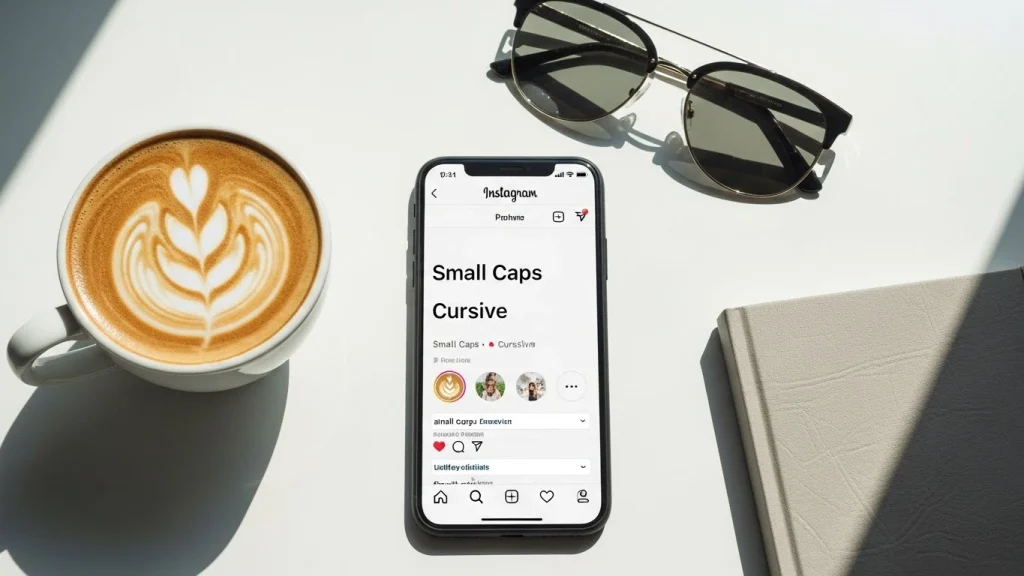
In the crowded world of social media, your first impression is often determined by your visual style. While high-quality photos are essential, the text you use in your bio and captions plays a massive role in defining your personal brand. Using aesthetic fonts for Instagram allows you to break away from the standard system typefaces and inject personality, whether you’re aiming for a “soft girl” vibe, a “dark academia” look, or a sleek minimalist profile.
As Instagram continues to evolve into a portfolio for creators and a storefront for businesses, every detail counts. Custom fonts don’t just look “cool”—they act as visual cues that tell your audience who you are before they even read a single word. In this guide, we’ll explore the top 15 font aesthetic styles currently trending and how to use them without hurting your profile’s reach.
Why Use Aesthetic Fonts for Instagram?
Before diving into our top picks, it’s important to understand how these fonts work. Instagram doesn’t technically allow you to change your font within the app settings. Instead, these “fonts” are actually Unicode characters. These are mathematical symbols that resemble letters, allowing them to be recognized as “text” across different devices.
Using these styles can increase your profile’s “stopping power.” When users scroll through a sea of standard Helvetica-style text, a unique font acts as a visual speed bump, encouraging them to pause and engage with your content.
1. The Classic Cursive
Perfect for romantic, feminine, or high-end fashion accounts. It adds an air of elegance.
𝓒𝓾𝓻𝓼𝓲𝓿𝓮 𝓢𝓽𝔂𝓵𝓮
2. The Minimalist Sans
Clean, modern, and easy to read. Ideal for tech and lifestyle influencers.
𝖬𝗂𝗇𝗂𝗆𝖺𝗅𝗂𝗌𝗍 𝖫𝗈𝗈𝗄
3. The Bold Serif
If you want your name or a specific call-to-action to pop, this is your best bet.
𝐁𝐨𝐥𝐝 𝐒𝐞𝐫𝐢𝐟 𝐓𝐞𝐱𝐭
4. The Monospace
Giving off “Typewriter” vibes, ideal for travel diaries and poetry accounts.
𝙼𝚘𝚗𝚘𝚜𝚙𝚊𝚌𝚎 𝚅𝚒𝚋𝚎𝚜
5. The Double Struck
Also known as “Hollow” text, this style is artistic and airy. Great for headings.
𝔻𝕠𝕦𝕓𝕝𝕖 𝕊𝕥𝕣𝕦𝕔𝕜
6. Script Bold
A thicker cursive that remains legible even on smaller mobile screens.
𝓼𝓬𝓻𝓲𝓹𝓽 𝓫𝓸𝓵𝓭
Matching Your Font to Your Niche
Not every font works for every brand. To maintain a cohesive aesthetic, you should match your typography to your content category:
- Fashion & Beauty: Use Classic Cursive or Small Caps to mirror the luxury feel of fashion magazines.
- Fitness & Motivation: Opt for Bold Serif or Square Blocks to convey strength and energy.
- Tech & Business: Stick to Minimalist Sans or Monospace to look modern and organized.
7. Small Caps (ꜱᴍᴀʟʟ ᴄᴀᴘꜱ)
The most popular choice for “Clean Girl” aesthetics. It looks like professional typesetting.
8. Fraktur/Gothic (𝔊𝔬𝔱𝔥𝔦𝔫)
Ideal for streetwear brands or tattoos artists. It has a heavy, edgy presence.
9. Bubble Text (Ⓑⓤⓑⓑⓛⓔ)
Playful and Gen-Z focused. Use it for highlights or fun announcements.
10. Italic Script (𝘐𝘵𝘢𝘭𝘪𝘤 𝘚𝘤𝘳𝘪𝘱𝘵)
A subtle lean that adds emphasis without appearing too “extra.”
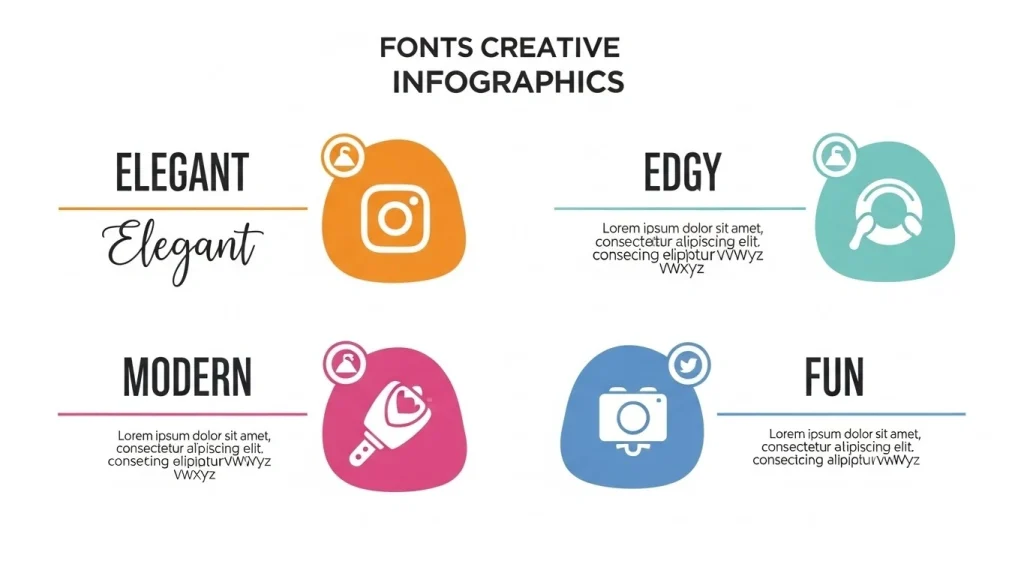
11. Square (🅂🅀🅄🄰🅁🄴)
Great for making contact details or “Link in Bio” prompts stand out.
12. Wide Text (Wide Text)
The “Vaporwave” classic. Spaced out letters for a lo-fi, relaxed feel.
13. Strikethrough (S̶t̶r̶i̶k̶e̶)
Used mostly for humor or to show a change in thought within a caption.
14. Underline (U̲n̲d̲e̲r̲l̲i̲n̲e̲)
Provides clear emphasis for important keywords in a long-form caption.
15. Glitch Text (G̷l̷i̷t̷c̷h̷)
Highly stylized and chaotic. Use for artistic projects or “Tech-wear” aesthetics.
A Critical Note on Accessibility
While using aesthetic fonts for Instagram is great for visual branding, it comes with a major drawback: Screen Readers.
Visually impaired users rely on screen readers to “read” text aloud. Because these fonts are Unicode symbols, screen readers often read them as individual symbol names (e.g., “Mathematical Italic Small A”) rather than the word itself.
Best Practice Tip:
Only use custom fonts for your name or small headings. Keep the bulk of your bio and your captions in standard text so everyone can understand your message.
Frequently Asked Questions
Do these fonts affect Instagram’s SEO?
Yes, they can. Instagram’s search algorithm reads your bio to categorize your profile. Since Unicode fonts aren’t standard text, the algorithm might not recognize your keywords. Always use standard text for your main keywords (like “Photographer” or “Fitness Coach”).
Are custom fonts allowed by Instagram?
Using custom fonts doesn’t violate Instagram’s Terms of Service. However, if a font makes your profile look like spam or uses prohibited symbols, it could lead to flagging.
Why do some fonts look like boxes on my phone?
This happens when a device’s operating system doesn’t support a specific Unicode character. This is why it’s safer to stick to popular styles like Small Caps or Bold Serif, which are widely supported.